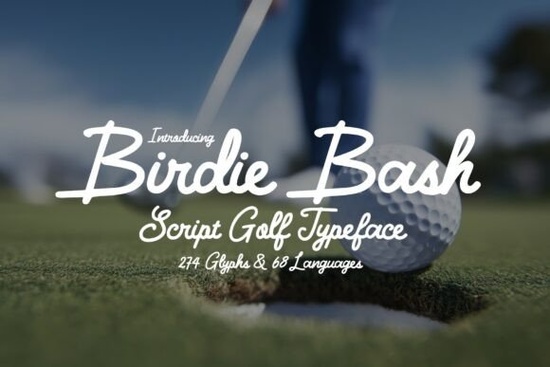
If you're designing anything related to golf whether it’s a logo for a local club, invitations for a charity tournament, or merch for your print-on-demand shop you know the right font can make all the difference. That’s where Birdie Bash Font comes in. It blends elegance with energy through smooth, hand-crafted script strokes that feel both personal and professional. Unlike stiff or overly decorative fonts, Birdie Bash carries a natural rhythm that mirrors the grace of a perfect swing.
Why does this font work so well for golf-themed projects?
Golf branding often walks a fine line between tradition and modern appeal. Birdie Bash nails that balance. Its flowing baseline and subtle bounce give it movement without feeling chaotic, while its refined letterforms keep things classy. You’ll find it especially useful for:
- Clubhouse signage and scorecards
- Tournament banners and digital ads
- Custom apparel like polos or caps
- Social media graphics for golf influencers
- Wedding invites for couples who met on the green
And because it’s built with real-world use in mind, it scales beautifully from tiny embroidery tags to large-format posters without losing its character.
How does it compare to other script fonts?
Not all script fonts suit niche themes like golf. Some lean too playful (Weekend Santa, for example, is great for holidays but not for fairway branding), while others feel too formal or corporate. Birdie Bash lands in a sweet spot: warm enough to feel human, polished enough to feel premium.
If you’ve used Mistle Kiss for romantic designs or Disney-inspired scripts for whimsical projects, you’ll appreciate how Birdie Bash offers a more grounded, sporty elegance. It’s also lighter and more fluid than bold choices like Thick Font, making it ideal for layered layouts or delicate typography treatments.
For those who love variety, the Farm Family Bundle gives you rustic charm but if your focus is clean, athletic sophistication with a handwritten soul, Birdie Bash stands out.
What can you actually create with it?
Small business owners and crafters have used Birdie Bash in surprisingly versatile ways:
- Logo design: Pair it with a clean sans-serif for contrast think “Fairway & Co.” with Birdie Bash handling just the primary word.
- Event stationery: From player gift tags to leaderboard headers, it adds instant polish.
- Product packaging: Golf ball sleeves, towel tags, or even coffee bags for course cafes.
- Digital templates: Canva or Etsy sellers use it in editable invitation kits targeting golf weddings or retiree celebrations.
Because it includes standard ligatures and stylistic alternates (depending on your software), you can tweak words like “FORE!” or “Eagle” to feel extra dynamic without switching fonts.
- Pair wisely: Try it with neutral fonts like Montserrat, Lato, or even a classic serif like Playfair Display.
Whether you’re crafting for passion or profit, Birdie Bash gives you a distinctive voice that feels authentic not forced. And in a market full of generic designs, that’s worth its weight in birdies.